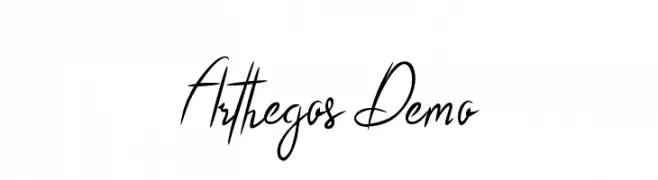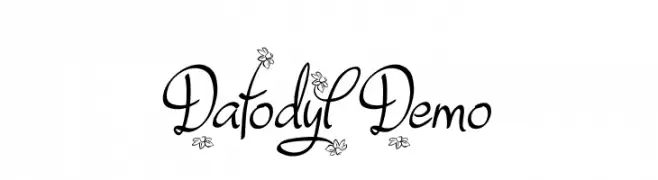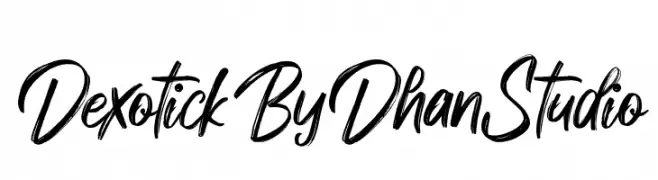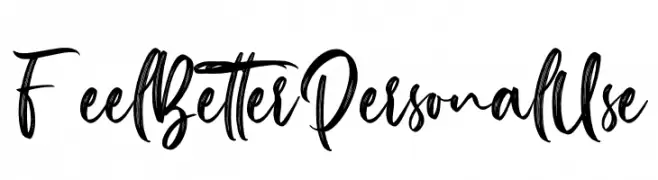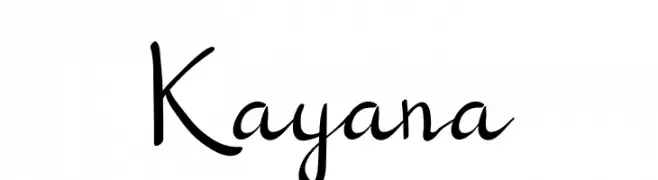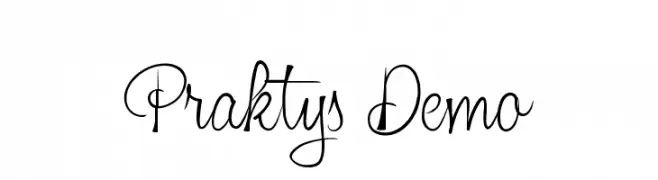
A playful and dynamic script font with fluid, connected letterforms.
A dynamic, expressive handwritten font with fluid strokes and artistic flair.
An elegant and flowing script font with a modern twist.
An elegant, flowing script font with a modern calligraphic style.
A decorative script font with floral embellishments and elegant, flowing letterforms.
A lively, expressive handwritten font with fluid, dynamic strokes.
A lively, expressive handwritten font with bold, brush-like strokes.
A whimsical and elegant handwritten font with flowing, interconnected letterforms.
A dynamic and expressive handwritten font with fluid, sweeping strokes.
A dynamic and energetic script font with fluid, swift strokes.